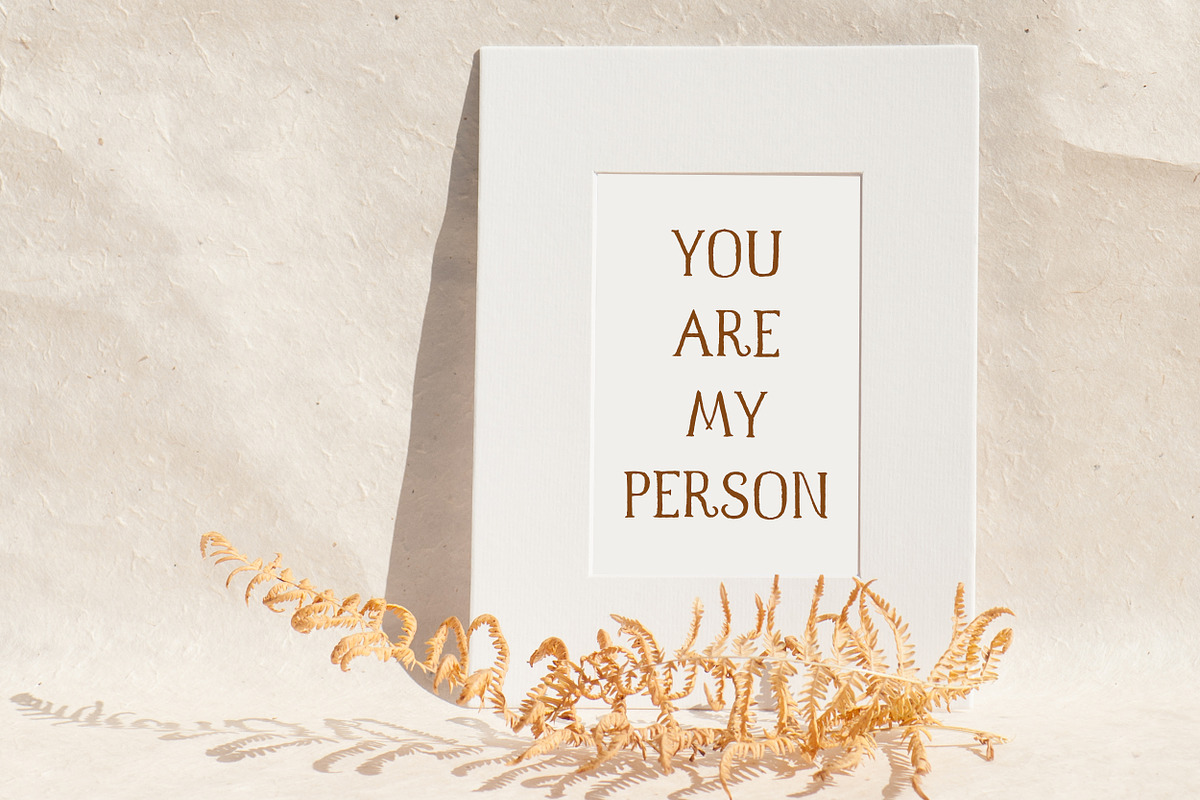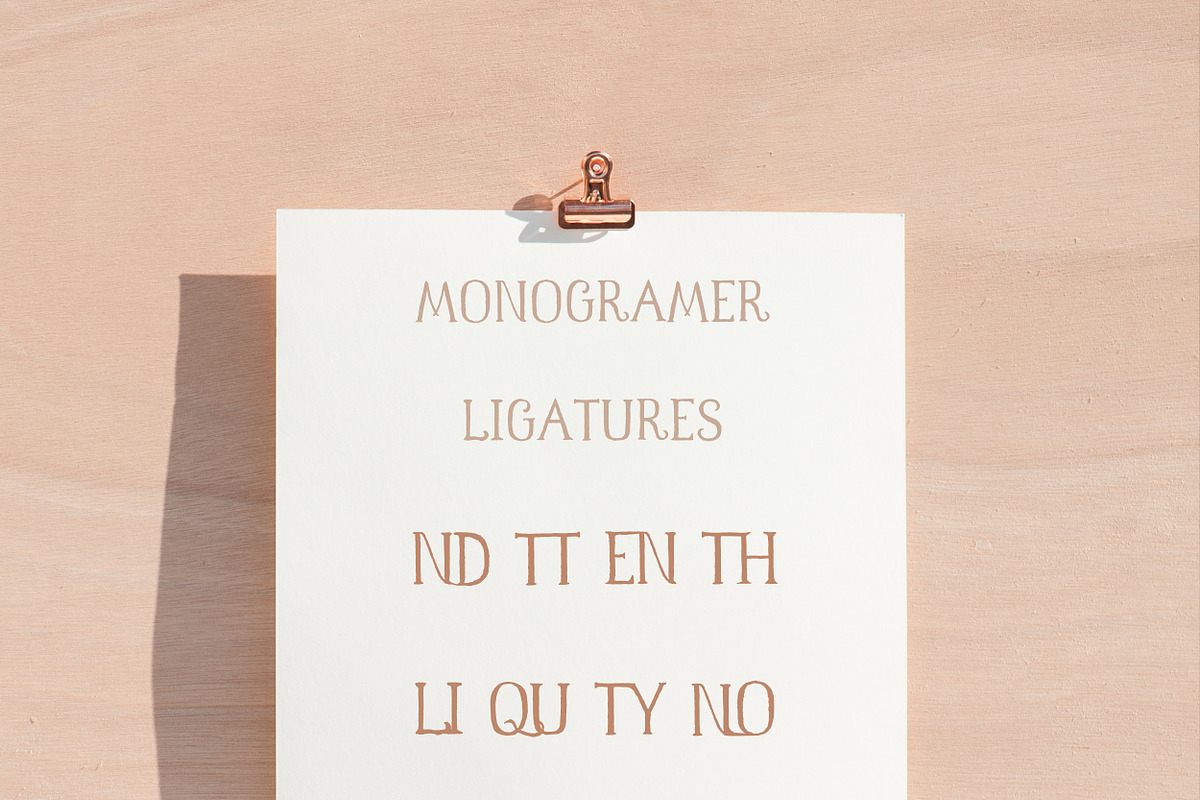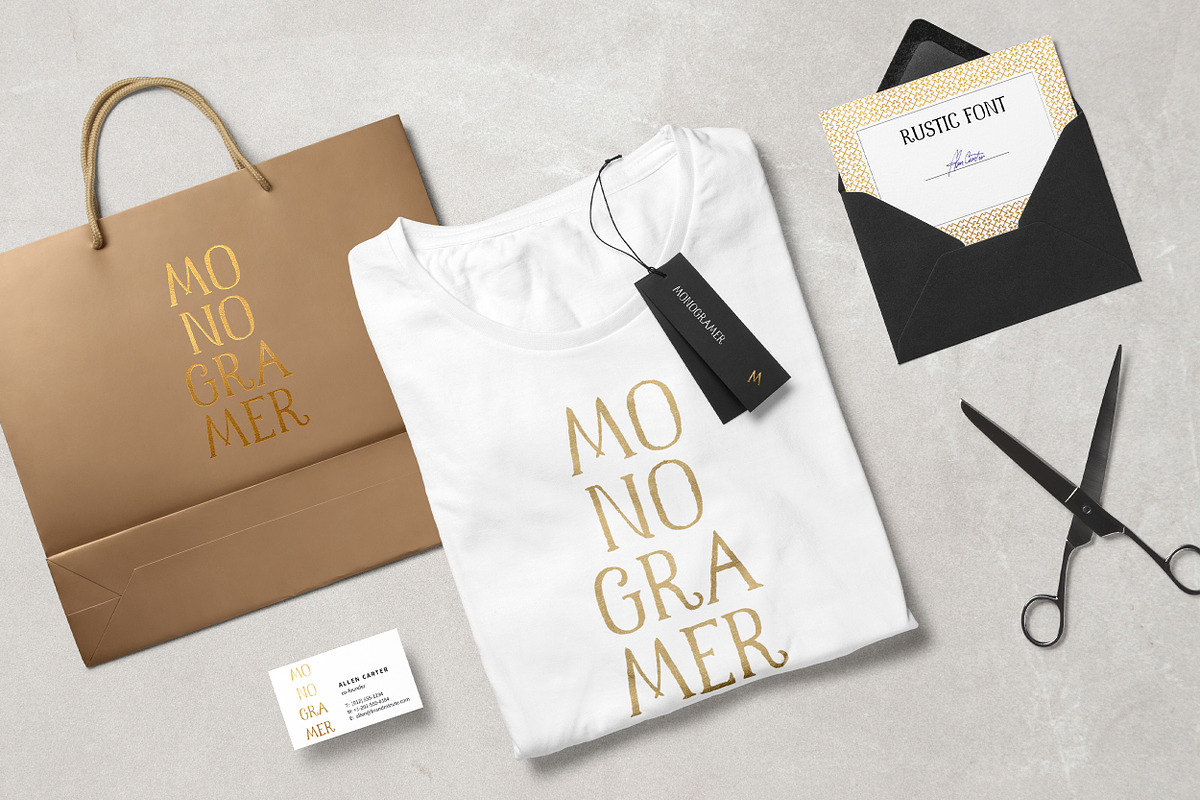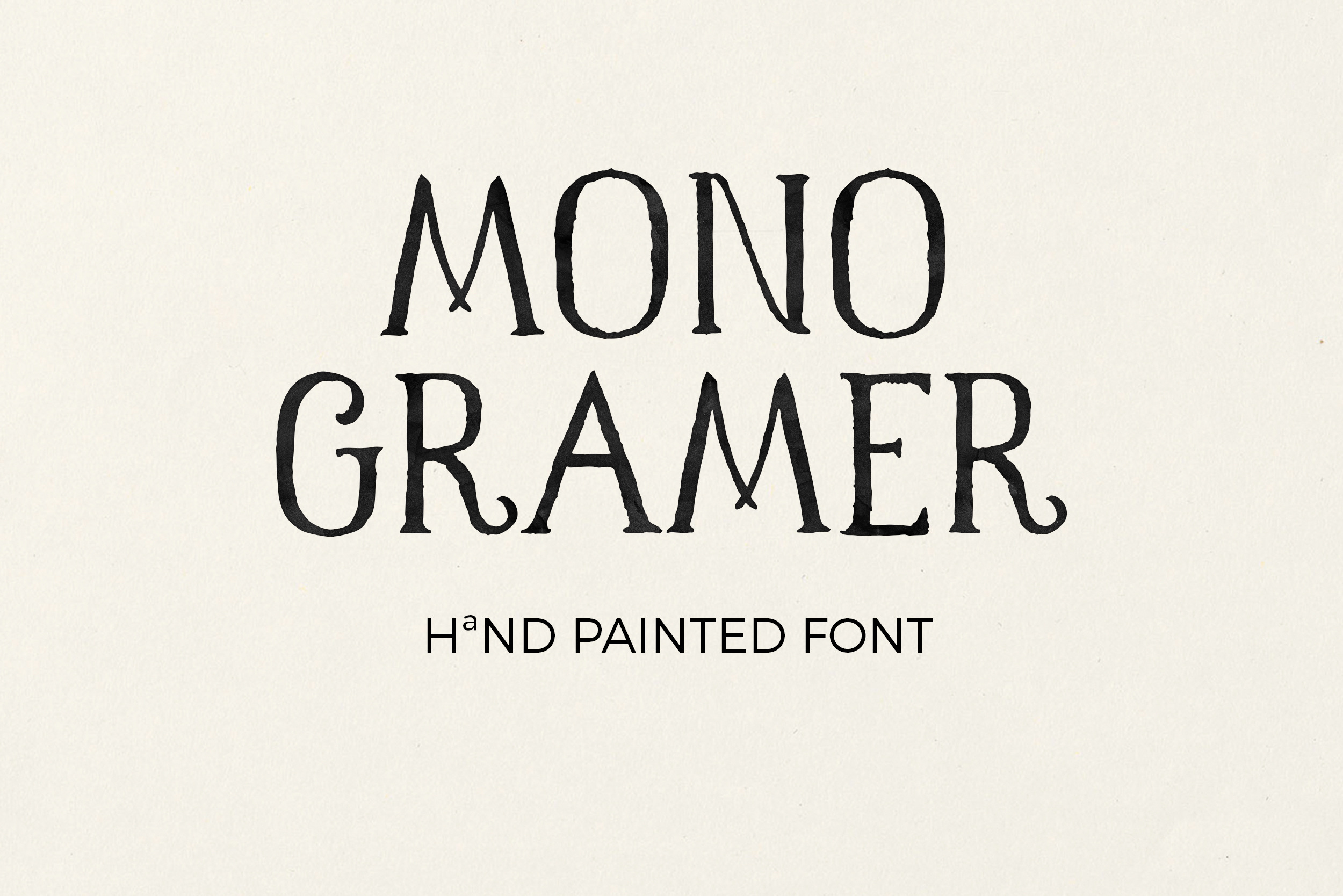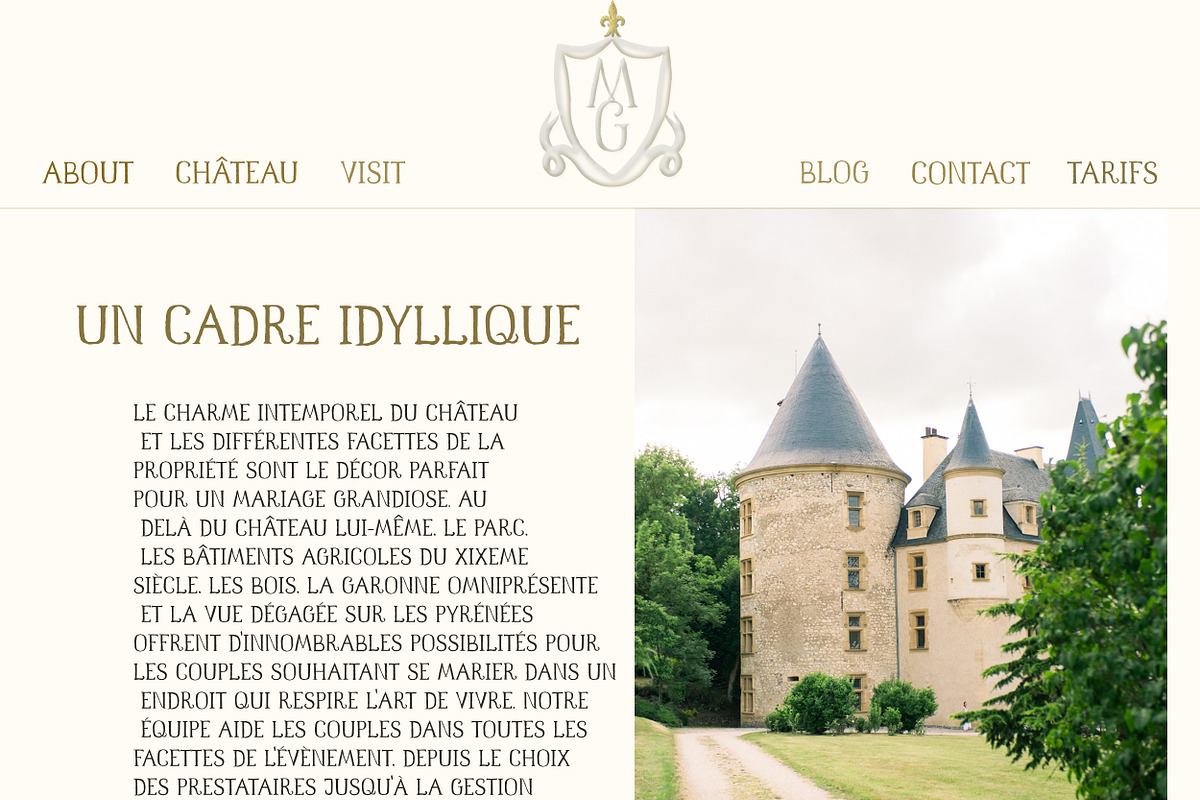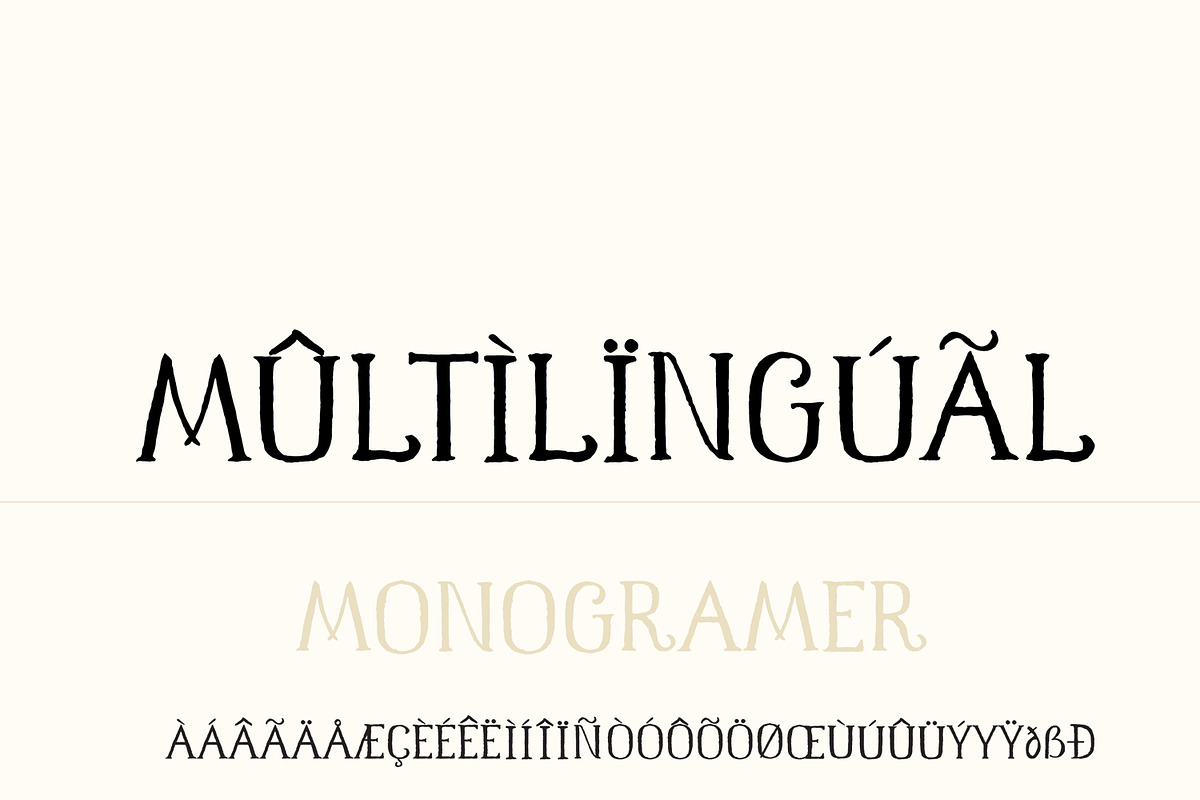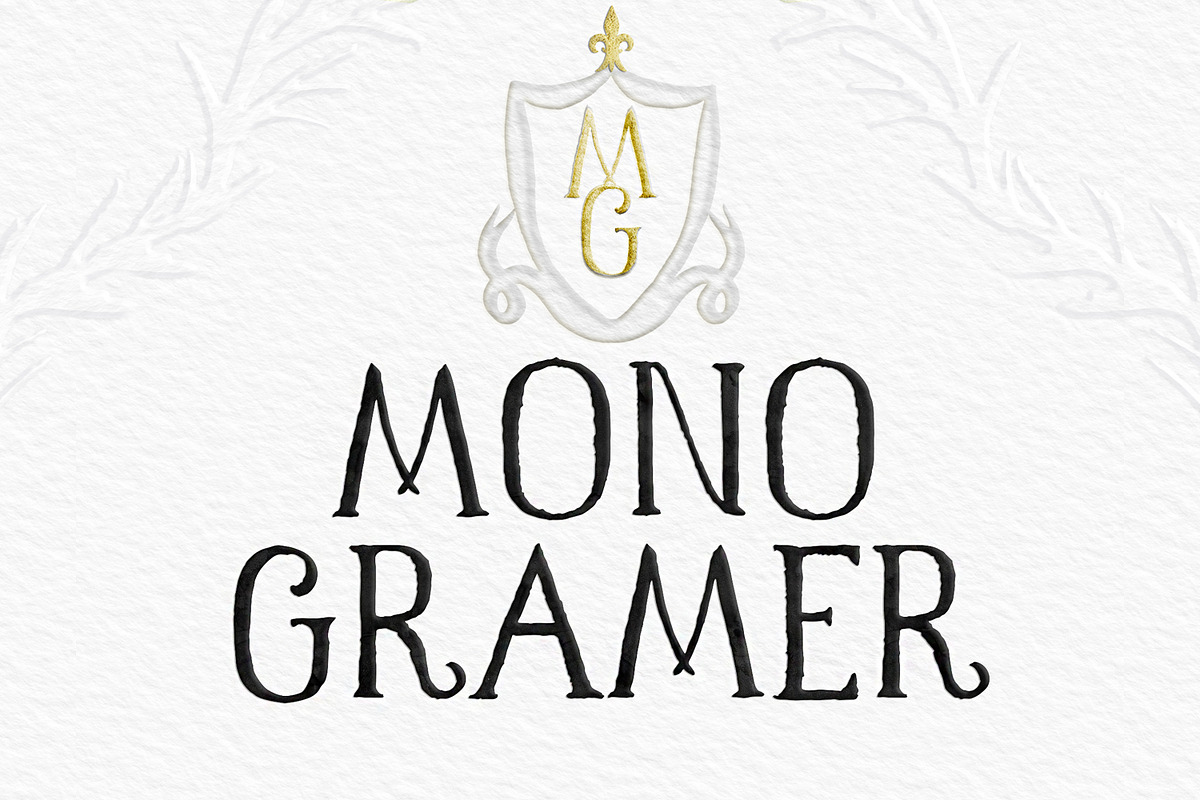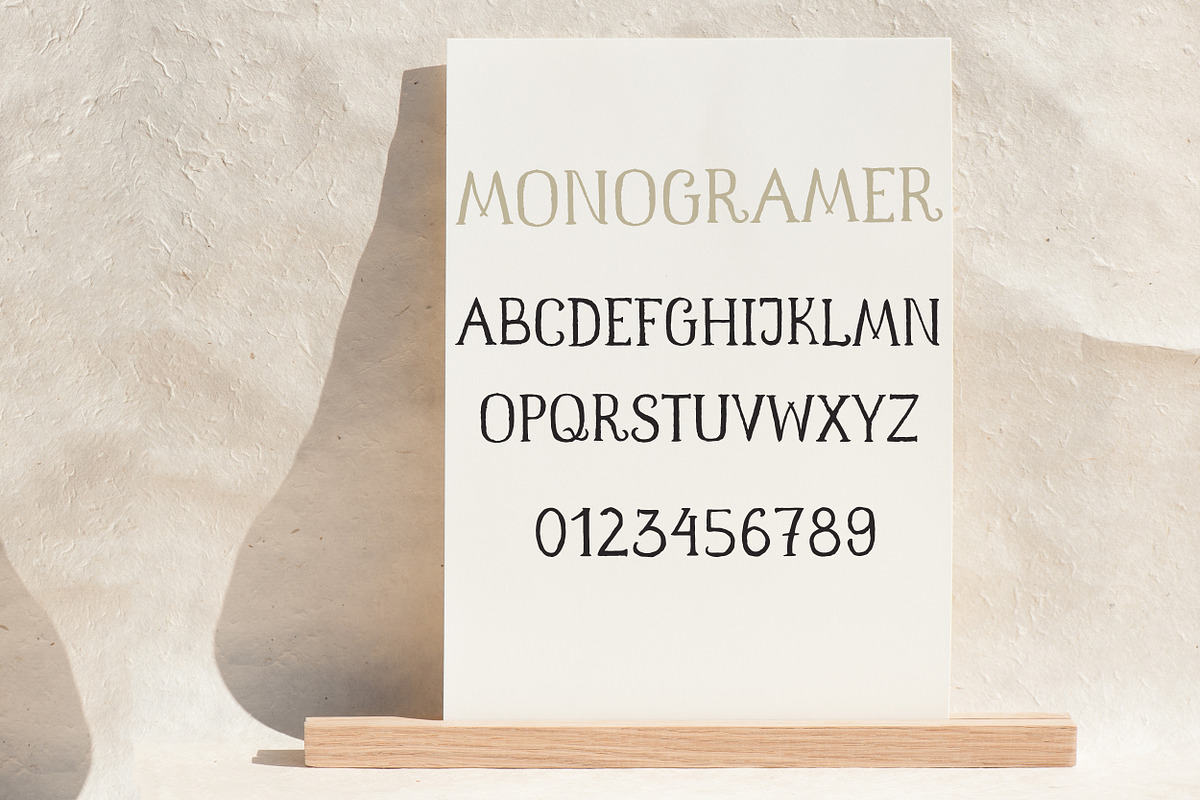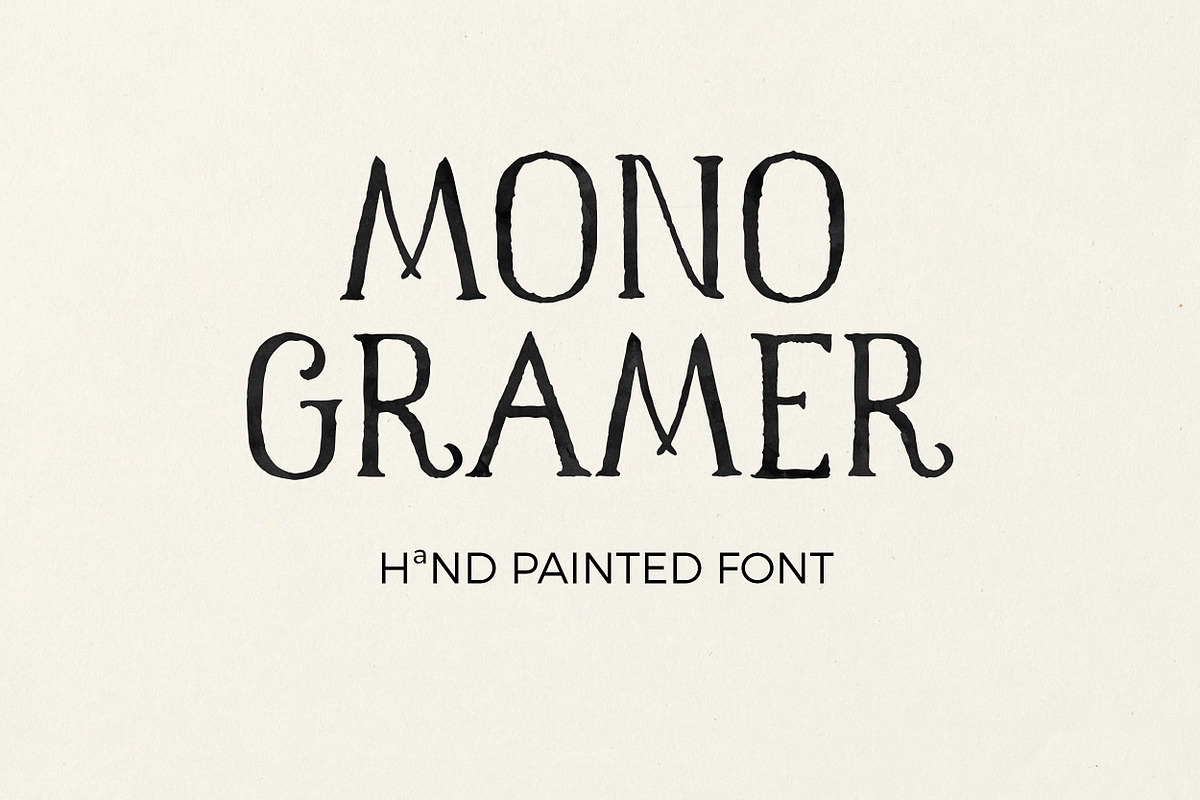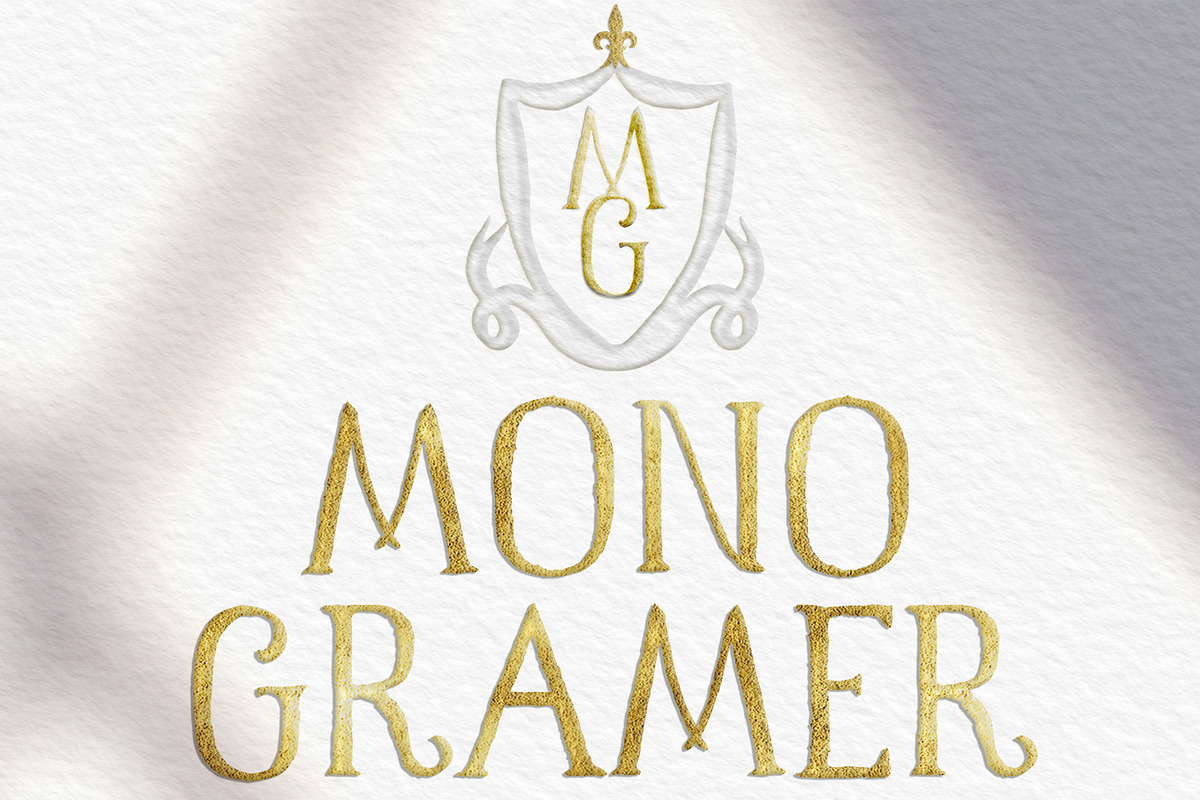
Monogramer. Hand-Drawn Serif Font
Introducing Monogramer –Classic and Rustic Hand lettered serif Font.
Inspired by classic monogram lettering and timeless traditions. It works perfect for creating monograms for wedding crest, stylish logos, striking editorials, books, invitations, graphic quotes, and more.